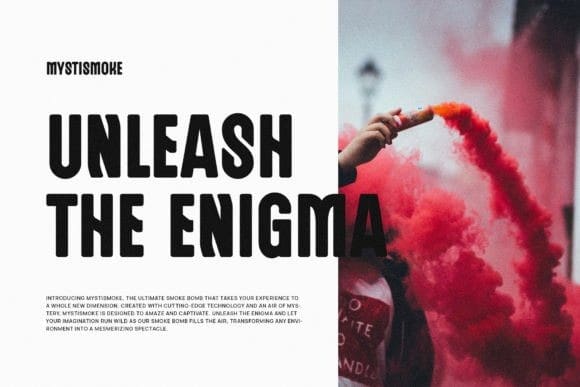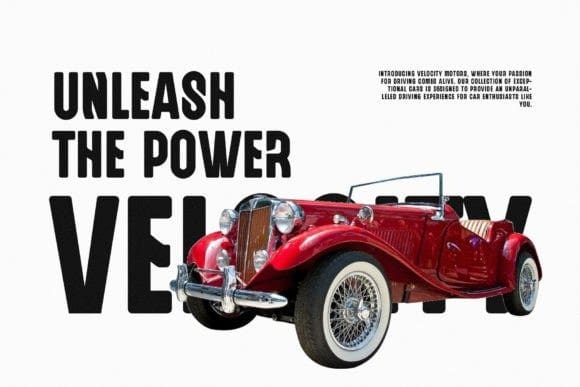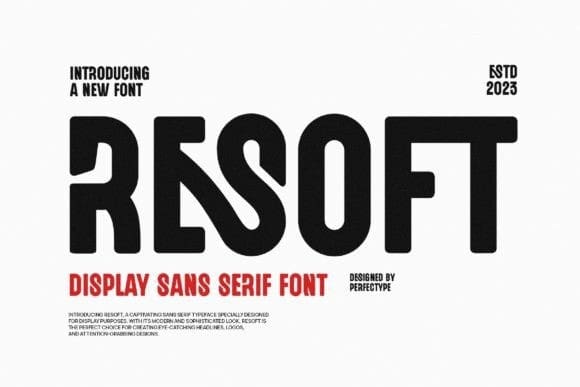
Resoft Font
Resoft Font, inspired by the famous minimalist logo perfect for designing templates, brochures, videos, advertising branding, logos, invitations, layout designs, elegant crafting, beauty design, and others.